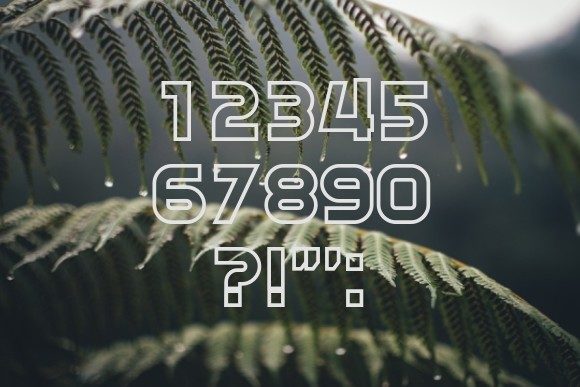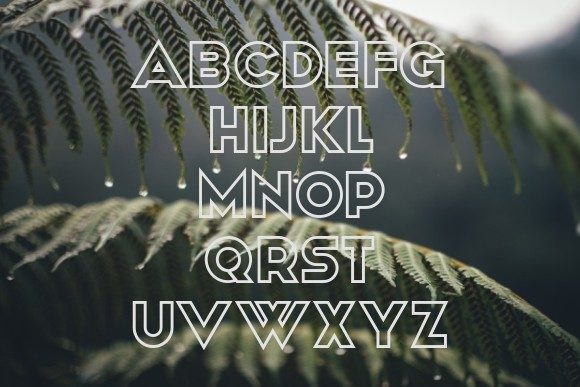
Avalon Font: The Perfect Choice for Your Creative Projects
Avalon Font is a stunning display font that has gained popularity among designers and crafters due to its simplicity and bold appearance. This versatile font is ideal for a wide range of creative projects, including children’s projects, storybooks, magazines, branding, name tags, product packaging, and many more crafts. In this article, we’ll explore the features and benefits of Avalon Font, and why it’s a great choice for your next project.
What is Avalon Font?
Avalon Font is a beautifully designed display font that exudes simplicity and elegance. Its bold and eye-catching appearance makes it perfect for headlines, titles, and other creative projects where you want to make a statement. The font is designed to be highly legible, even at large sizes, making it ideal for use in a variety of applications.
Features of Avalon Font
- Simple and Bold: Avalon Font has a clean and simple design that makes it stand out from other fonts. Its bold appearance ensures that your text will grab attention and make a lasting impression.
- Highly Legible: The font is designed to be highly legible, even at large sizes. This makes it perfect for use in children’s projects, storybooks, and other applications where readability is crucial.
- Versatile: Avalon Font is a versatile font that can be used in a wide range of creative projects, from branding and packaging to magazines and crafts.
Benefits of Using Avalon Font
There are many benefits to using Avalon Font in your creative projects. Here are just a few:
- Adds Visual Interest: Avalon Font adds visual interest to your projects, making them more engaging and attention-grabbing.
- Enhances Readability: The font’s high legibility ensures that your text is easy to read, even at large sizes.
- Increases Creativity: Avalon Font’s simplicity and boldness make it a great choice for creative projects, allowing you to express yourself and bring your ideas to life.
- Professional Look: The font’s professional appearance makes it perfect for use in branding, packaging, and other applications where a polished look is essential.
Uses of Avalon Font
Avalon Font is a versatile font that can be used in a wide range of creative projects, including:
- Children’s Projects: Avalon Font is perfect for use in children’s projects, such as storybooks, activity sheets, and educational materials.
- Storybooks: The font’s bold and eye-catching appearance makes it ideal for use in storybooks, comics, and other narrative projects.
- Magazines: Avalon Font is a great choice for use in magazines, newspapers, and other publications where you want to make a statement.
- Branding: The font’s professional appearance makes it perfect for use in branding, logos, and other marketing materials.
- Product Packaging: Avalon Font is a great choice for use in product packaging, labels, and other materials where you want to make a lasting impression.
- Crafts: The font is also perfect for use in various crafts, such as scrapbooking, card making, and other paper crafts.
In conclusion, Avalon Font is an amazing display font that is perfect for a wide range of creative projects. Its simplicity, boldness, and high legibility make it a great choice for designers and crafters who want to add visual interest and professionalism to their work. Whether you’re working on a children’s project, storybook, magazine, branding, product packaging, or craft, Avalon Font is a versatile and reliable choice. So why not give it a try and see the difference it can make in your next project?